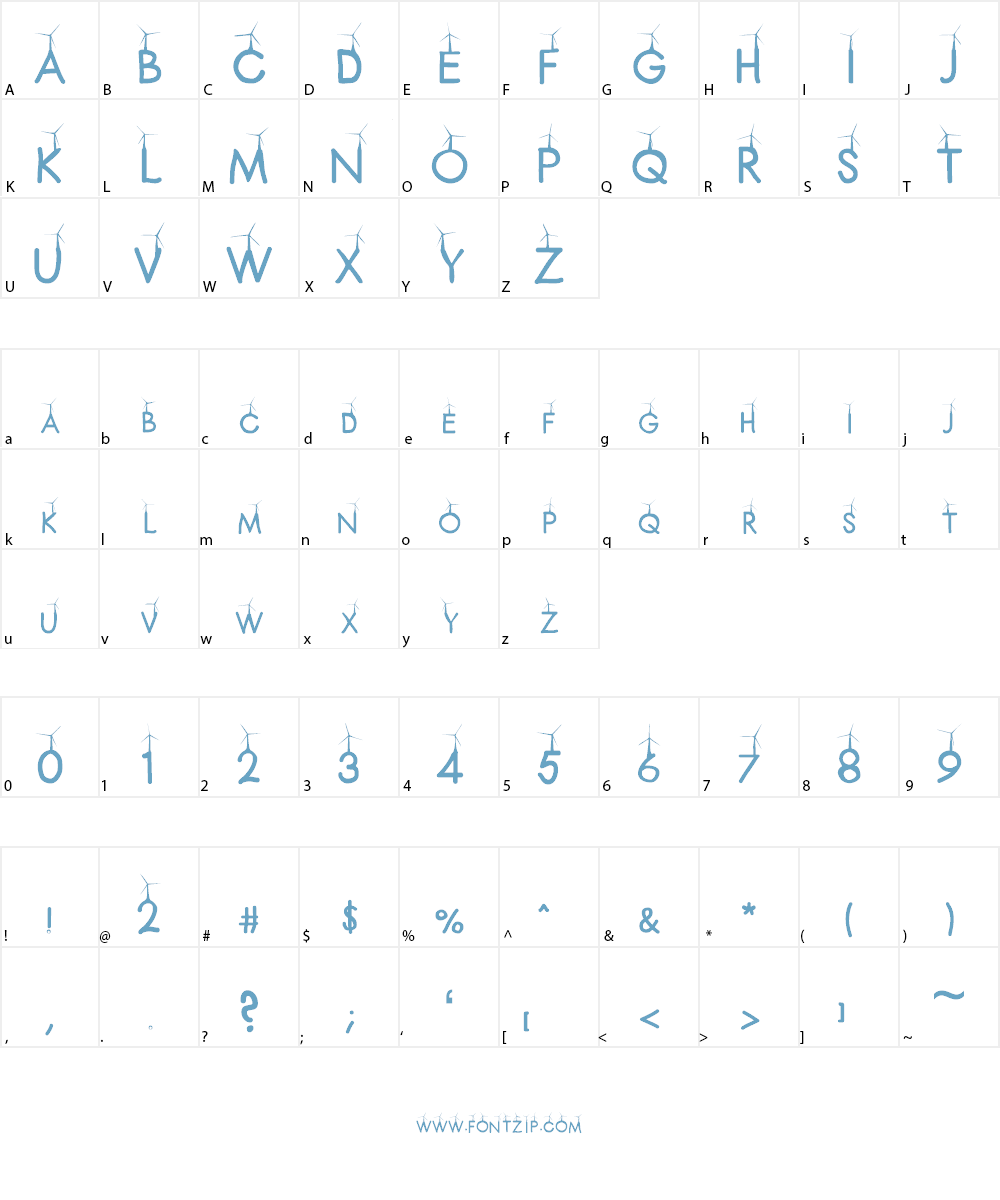
A BLOT ON THE ALPHABET OR A FONT TO CHANGE THE WORLD?
- Free, fun and with significant visual impact on the alphabet -
In celebration of being awarded planning permission for Awel Aman Tawe’s community windfarm, Emily Hinshelwood has designed a new font called ‘Catch the Wind’, which features a wind turbine on the top of every letter.
Awel Aman Tawe (AAT) is a community energy charity committed to lowering carbon emissions and reducing the impact of climate change. After fourteen years, AAT finally received planning permission to build a two-turbine community-owned wind farm in South Wales. The font is downloadable free of charge - though a donation to Awel Aman Tawe would be appreciated. All money donated will go towards building the wind farm. More information about Awel Aman Tawe is available at www.awelamantawe.co.uk